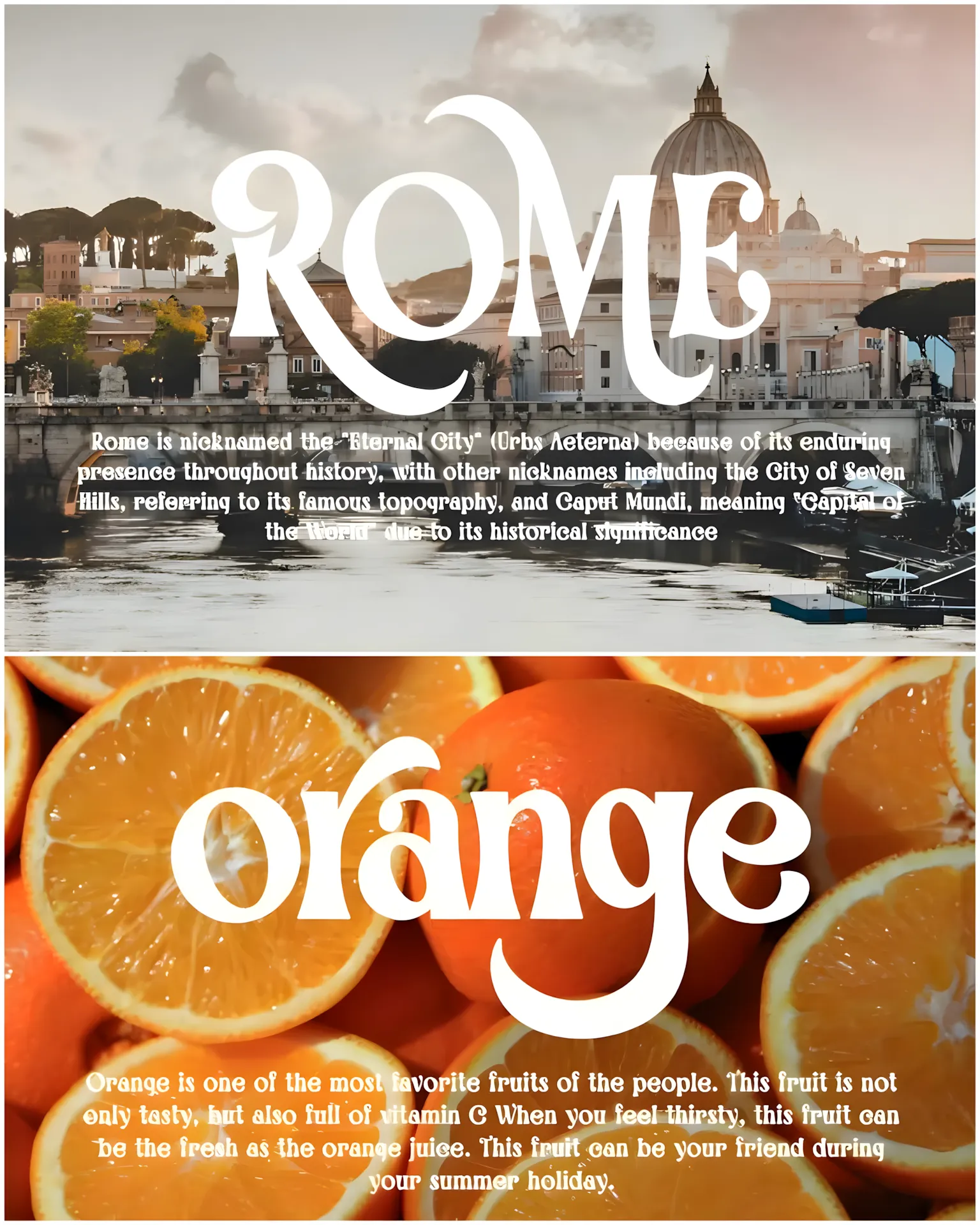
Want to make your designs pop? Blink Omega is a display serif font that mixes classic boldness with a cool, modern twist, using eye-catching swashes and letters with lots of contrast.
This font has thick serifs and exaggerated loops and swashes that make it super fancy and hard to miss. The two-color look in the preview shows off its fun, retro vibe.
Blink Omega is great for anyone who loves to go big. It comes with all the usual letters and numbers, plus tons of swashes and alternate styles to help you make logos and headings that are one of a kind.
It’s perfect if you’re working on branding for fashion or beauty products, music fest flyers, old-school invites, cool magazine layouts, or logos that need to be bold and stand out. Basically, if you need a font that’s attention-grabbing with a vintage feel, Blink Omega is it.